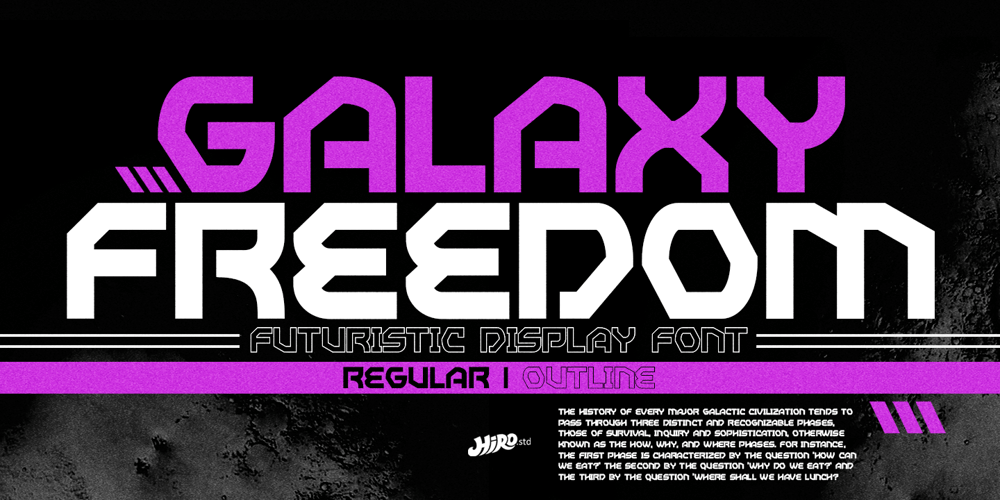
Galaxy Freedom Font Family was designed by Chairul Ashar and published by HIRO.std. Galaxy Freedom contains 2 styles and family package options. Galaxy Freedom is a futuristic display font. This font describes about futurism, space, sci-fi, modern, simple, cyberpunk, clean and easy to use. FEATURES- Uppercase letters- Numbering and Punctuations- PUA Encoded Characters- Multilingual Support- Works on PC or Mac USEGalaxy Freedom works great in movie title, game title, headline, logotype, labels, magazine, packaging, apparel, and any projects that need futuristic taste. Enjoy using!Thanks. HIRO.std